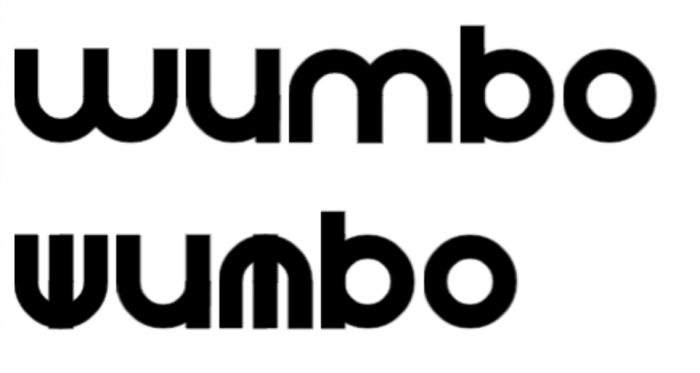
• i really wanted a perfect circle in a font, so i started with a perfect circle "o" with the macaroni bricks and then continued from there.
thanks! updated to cover all basic latin
Looks good, All it needs are accents on the extra latin letters
Hey, what about the accent's?
I add accents to my letters!
sure yea just added accents and updated some of the letters to be different between capitals and lowercase
An interesting solution for v. You could also make an alternative for for U with a spur at the bottom right, and in lc v do as u now. Narrow alternatives w M as e and p b q without offsets are also requested. 2 5 6 (9) 3 (e) now have unpleasant exits, you could get rid of them.
e shortened, u has spur, v is spurless u
capital w and m are full length,
lowercase w and m are shortened.
I personally prefer full length w and m everywhere
2 5 6 9 3 exits have been shorted. I prefer longer exits for 6 and 9 though, but its a matter of taste
>p b q without offsets are also requested
What do you mean by offsets? Do you want them without spurs? If so, I would also remove the spurs from "d". However I think the spurs are necessary if we use them to distinguish v and u